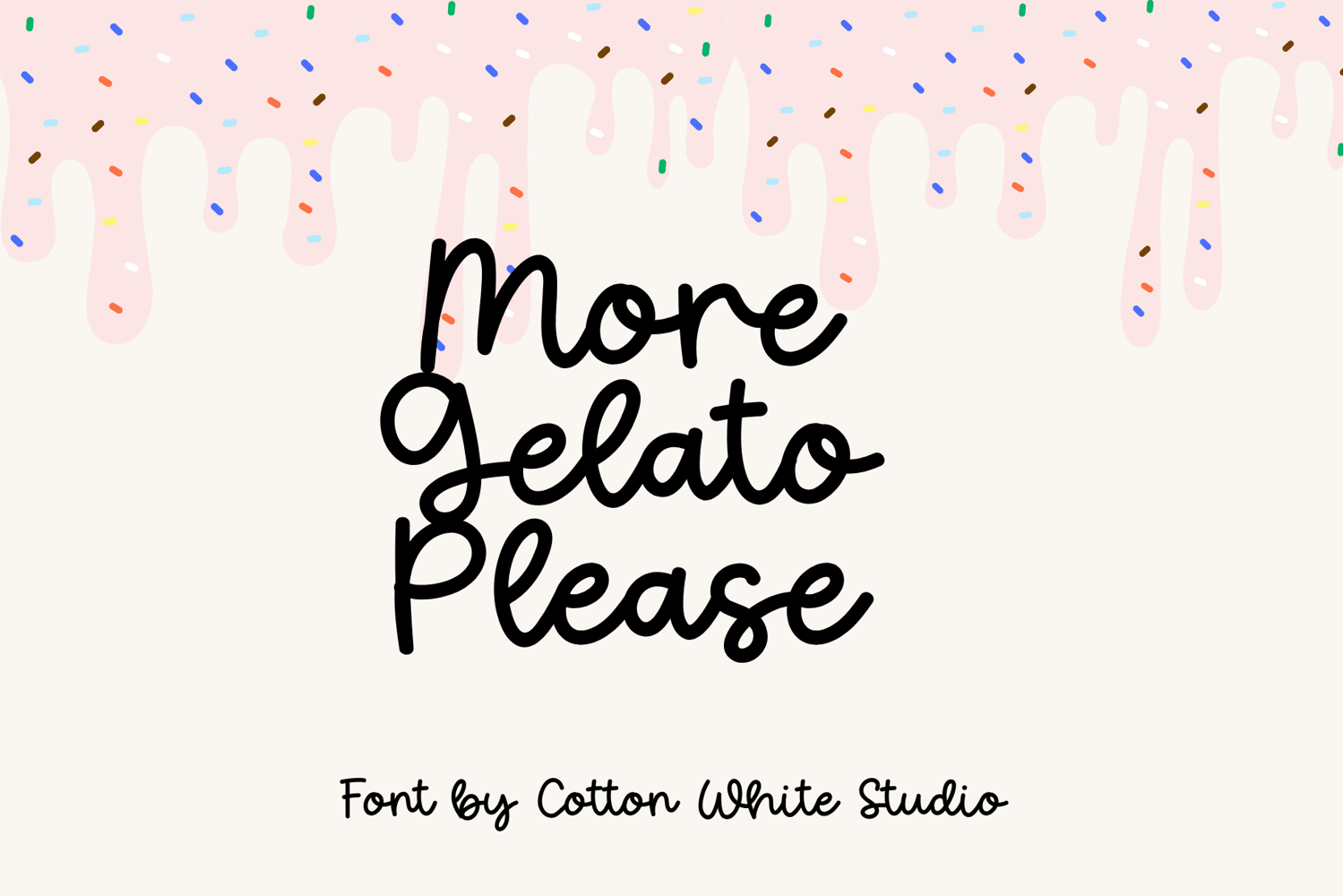
More Gelato Please
Add a beautiful handcrafted touch to your creative projects with More Gelato Please, a charming handwritten script font. Featuring elegant, flowing letterforms and an authentic hand-drawn feel, this font brings warmth, personality, and style to any design. Perfect for branding, logos, wedding invitations, social media graphics, blogs, planners, packaging, greeting cards, and so much more.
More Gelato Please